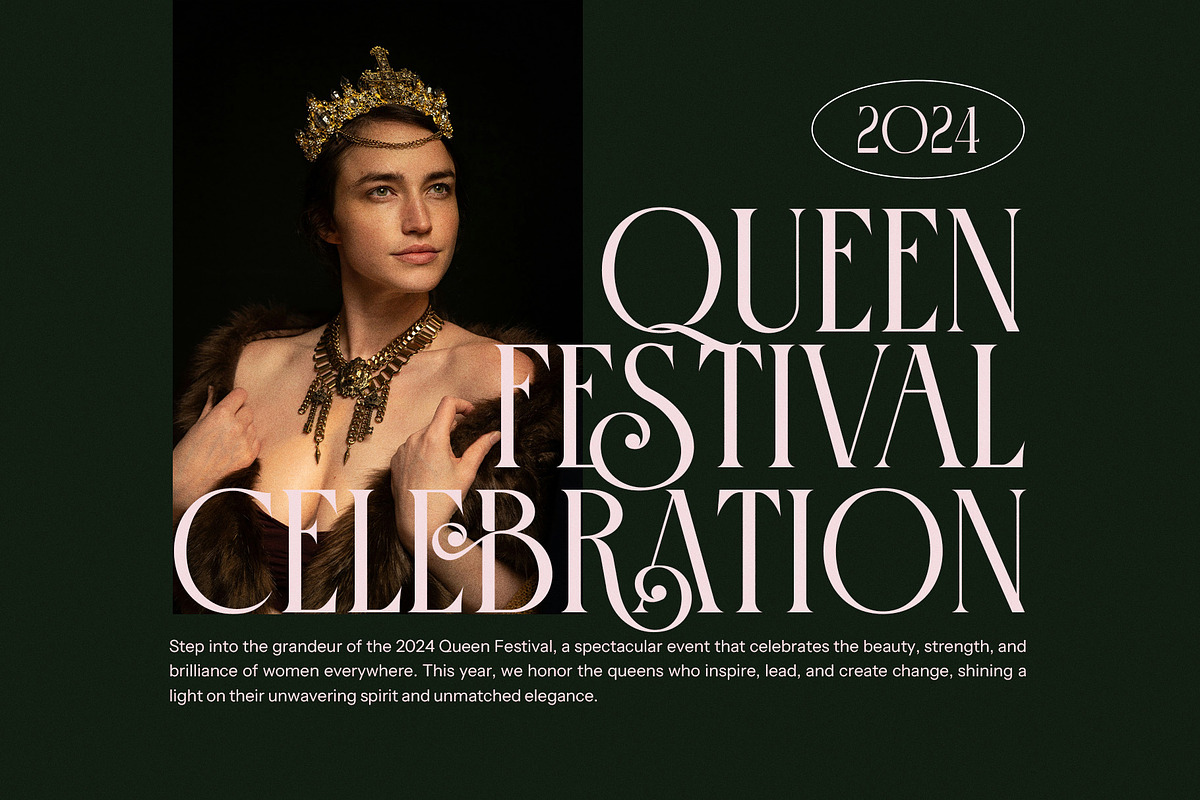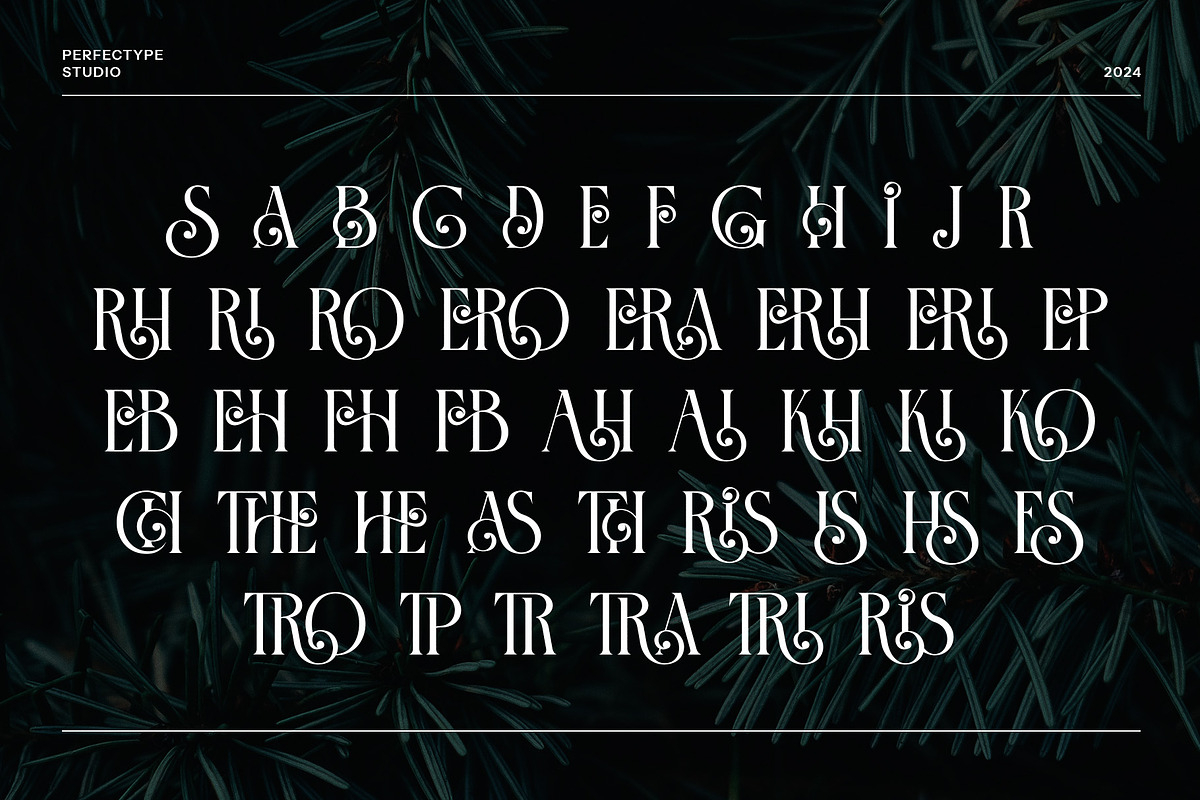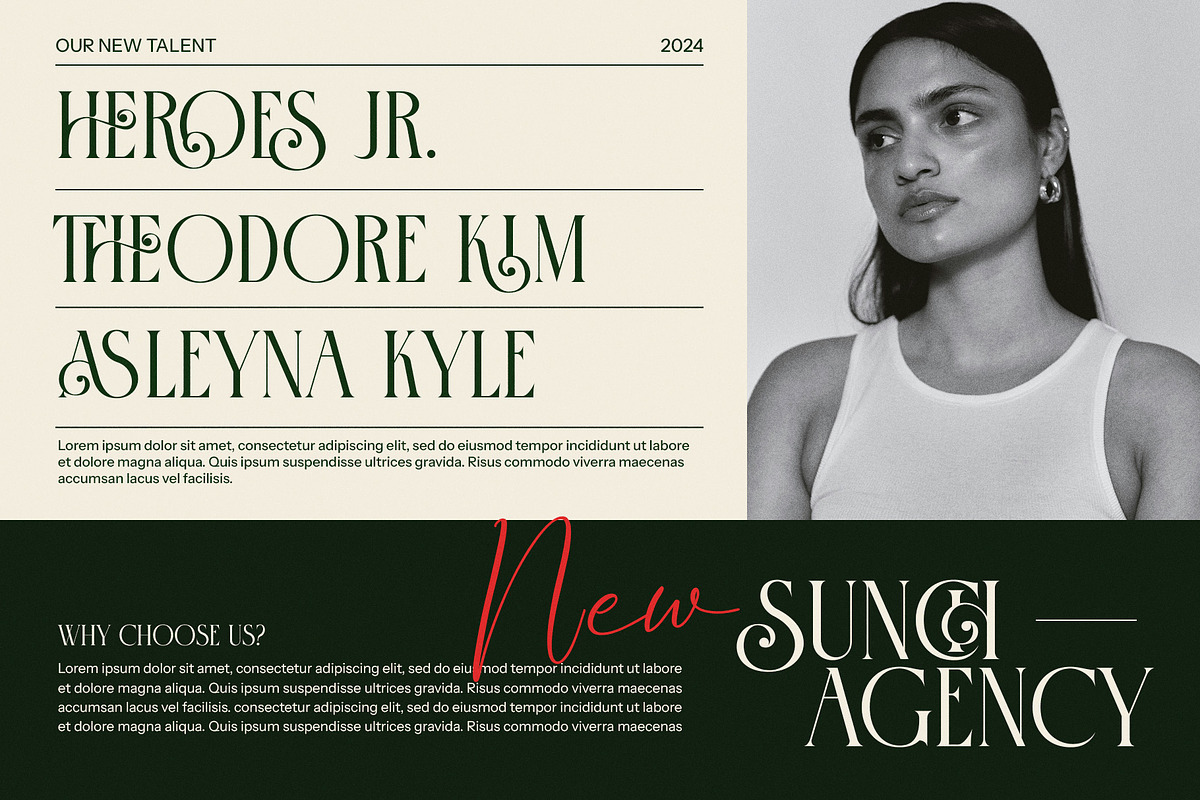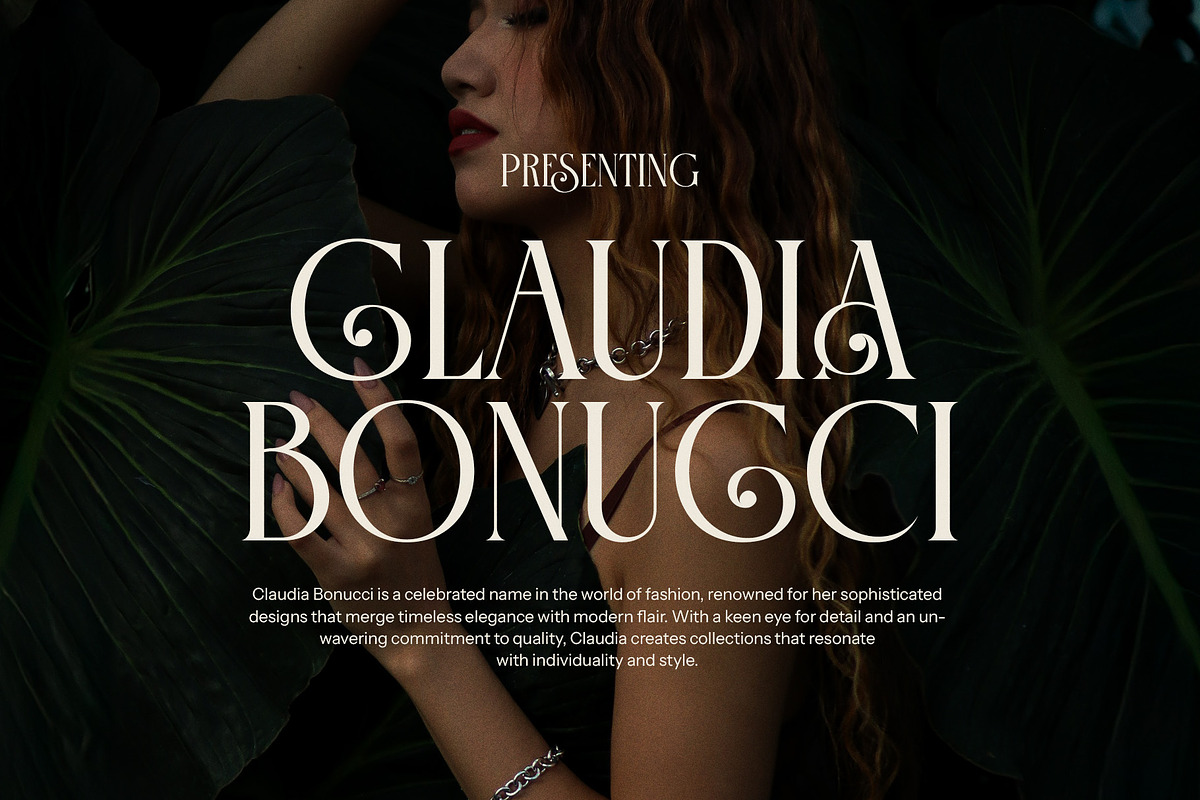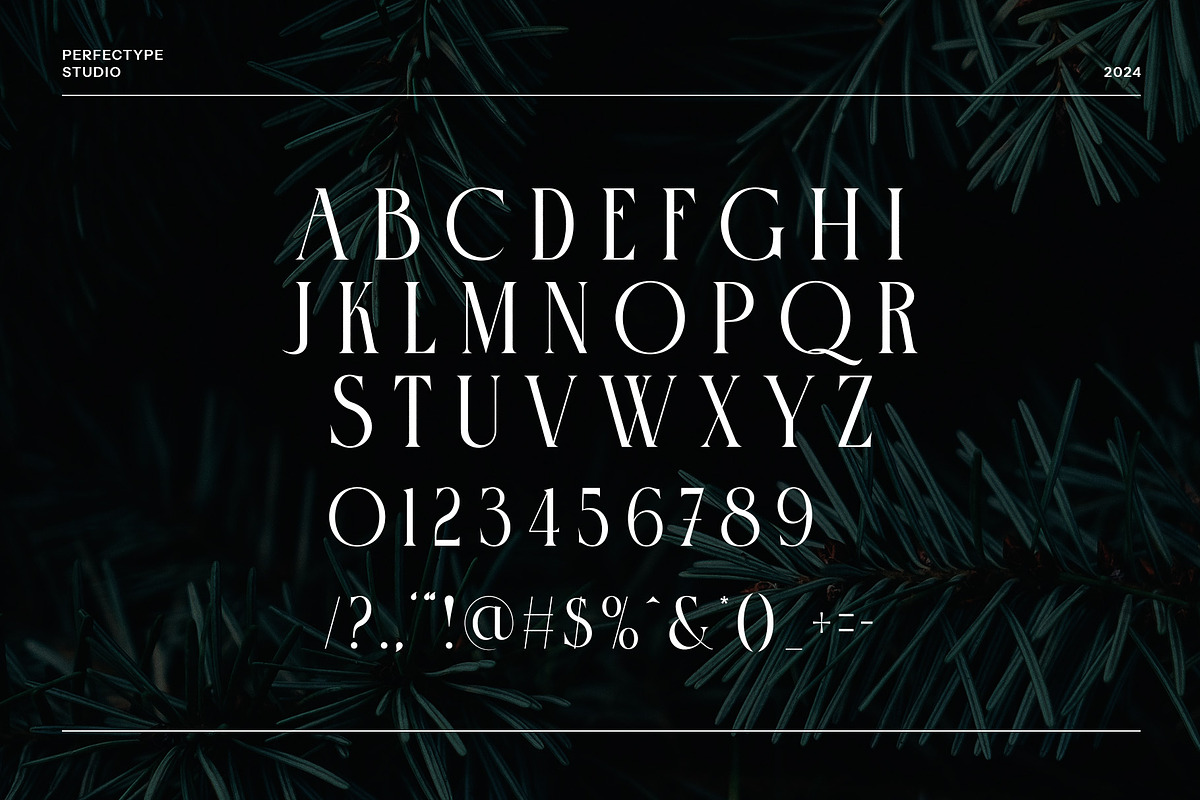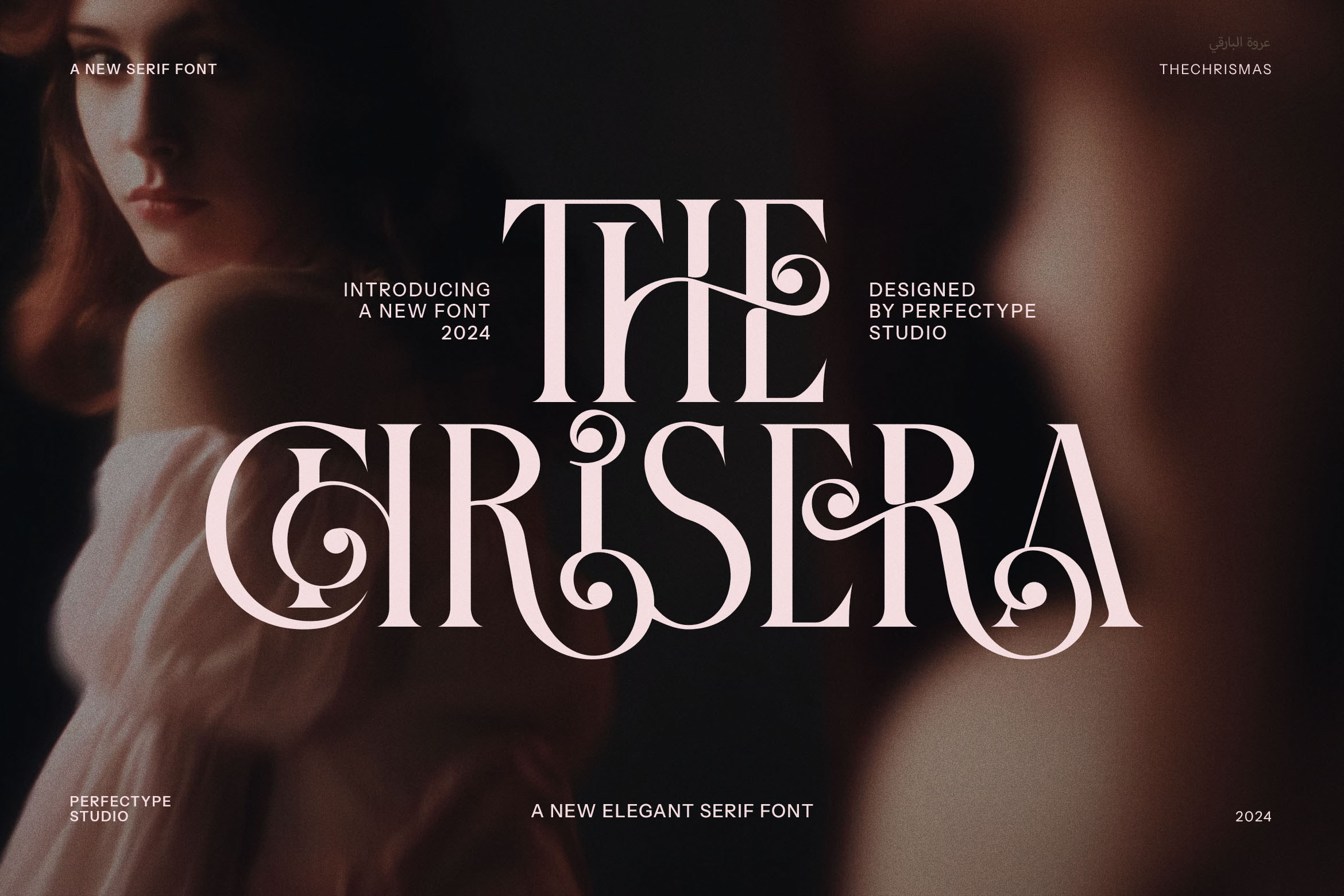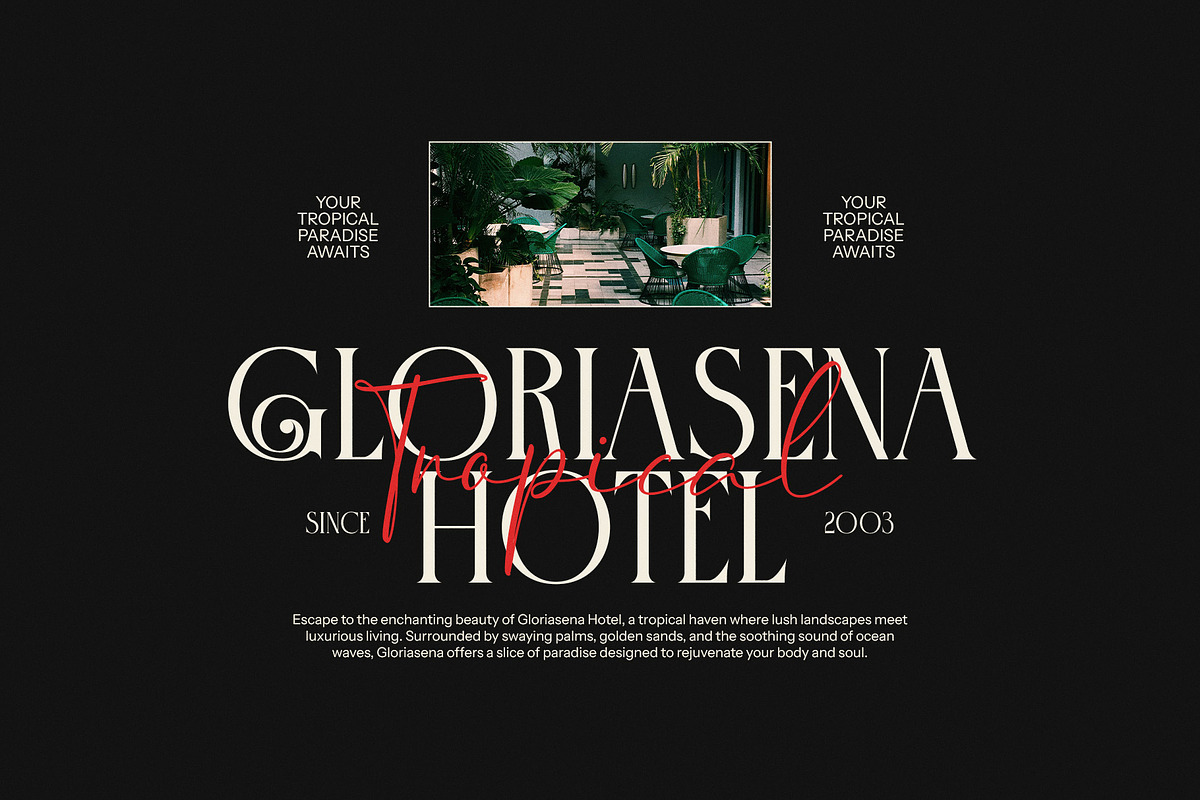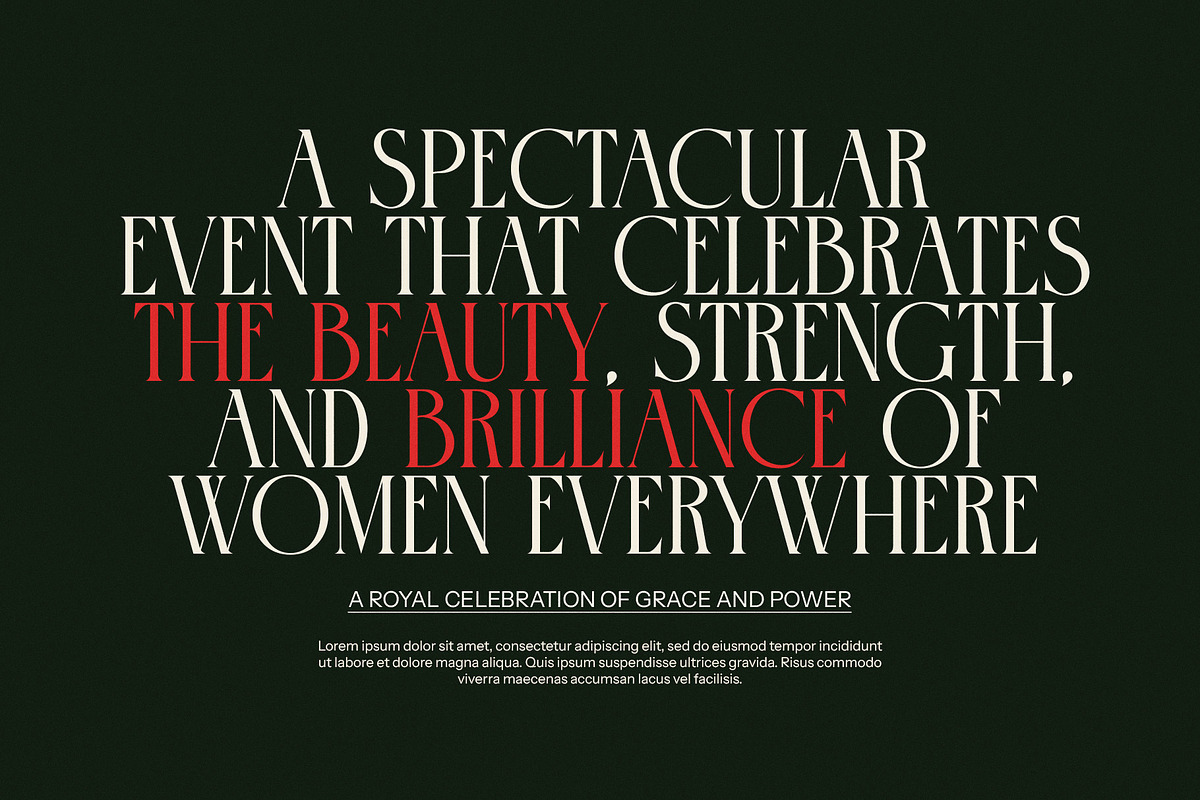
The Chrisera Stylish Serif Font
The Shrisera Stylish Serif Font is a refined and contemporary serif typeface designed to bring elegance and sophistication to any project. With its unique letterforms, graceful ligatures, and an array of beautiful calligraphic alternates, The Shrisera stands out as a font that combines timeless charm with modern flair. This versatile font is perfect for designers looking to infuse their work with both luxury and readability, making it ideal for a wide range of high-end applications.
The Shrisera’s stunning serif design features delicate curves and strong contrasts that make it perfect for logo design, branding, editorial layouts, and more. Whether you're working on product packaging, book covers, magazine spreads, or website typography, The Shrisera adds a polished, professional look that enhances any creative concept. Its sophisticated appearance makes it particularly well-suited for industries like fashion, beauty, perfumes, and lifestyle brands.
Beyond its beauty, the font’s carefully crafted ligatures and alternates give it a distinct personality that adds depth and fluidity to your designs. The Shrisera offers a balance between formality and creativity, making it suitable for invitations, weddings, advertisements, and boutique branding. Whether used for headlines, logos, or body text, it will ensure your designs make a lasting impression.
With its perfect blend of elegance and functionality, The Shrisera Stylish Serif Font is an essential tool for any designer seeking to create visually striking, luxurious, and memorable projects. From high-end branding to editorial masterpieces, this font will elevate your creative vision with style and grace.